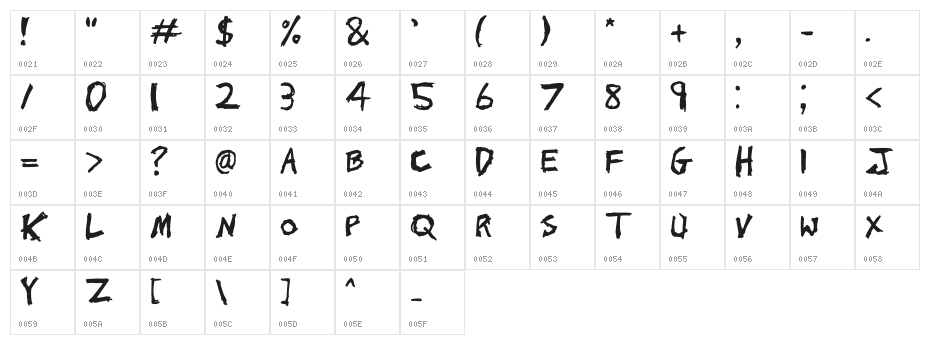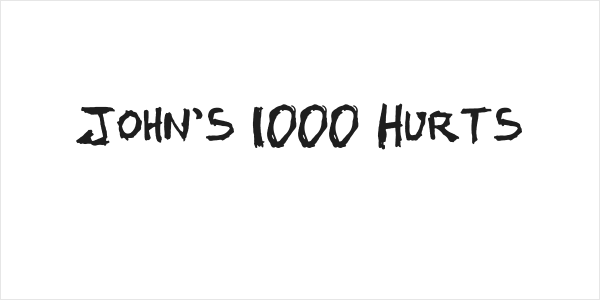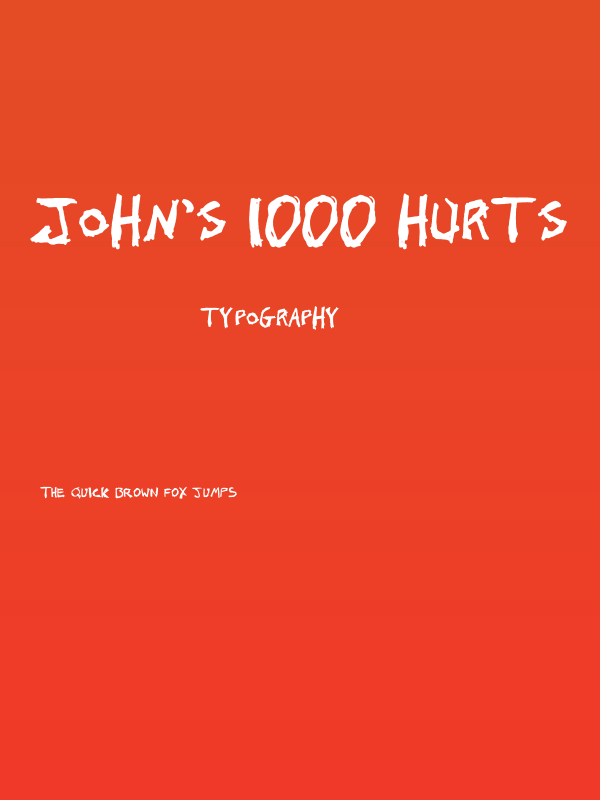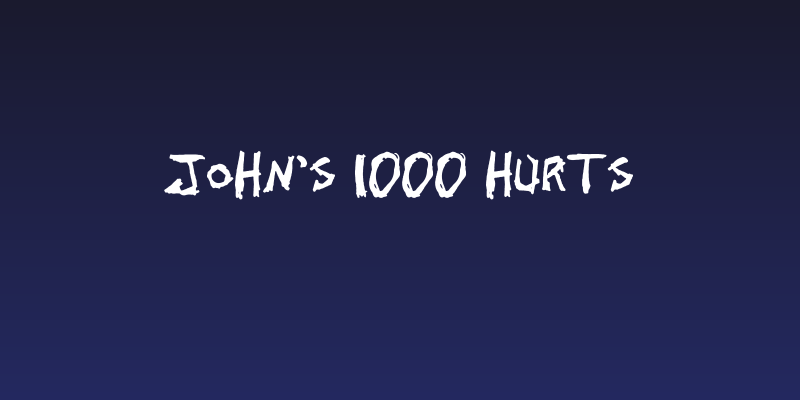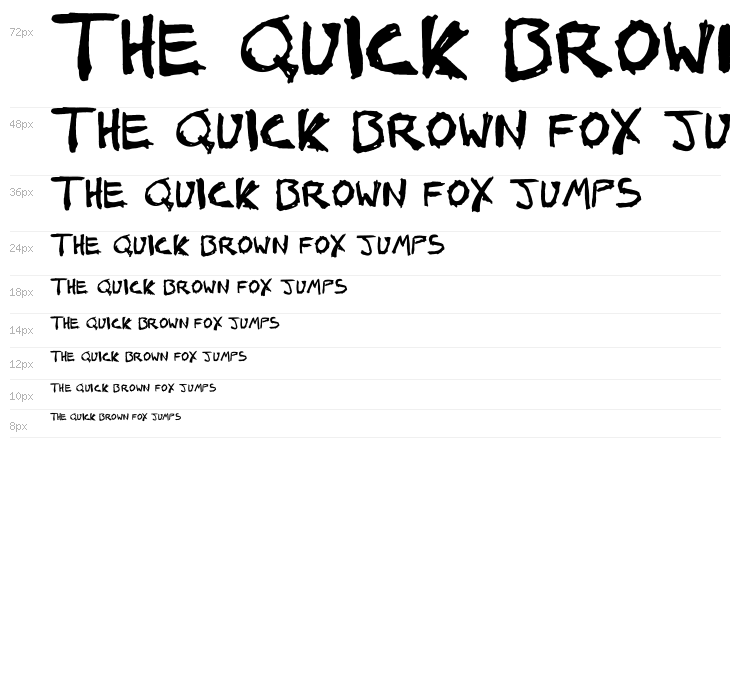
John's 1000 Hurts Font
John's 1000 Hurts Description
This font features a bold and expressive style with a hand-drawn appearance. The characters are uneven and jagged, giving it a raw and energetic feel. The uppercase and lowercase letters maintain a consistent height, while the numbers and special characters follow the same rugged design. The strokes are thick and irregular, adding to the font's dynamic and edgy look. This style is reminiscent of graffiti or street art, making it stand out with its unique and rebellious character.